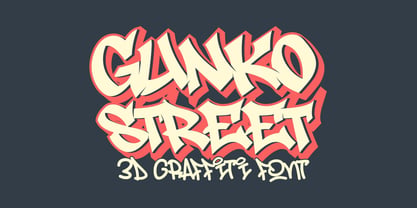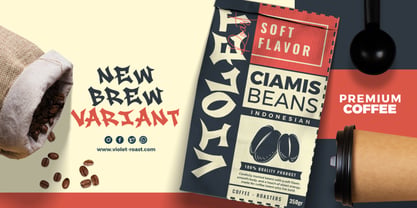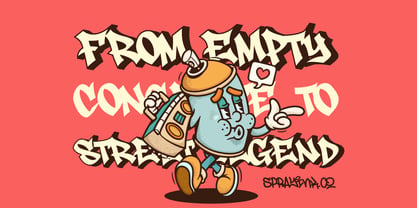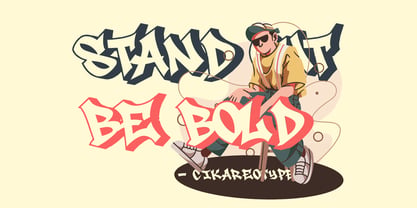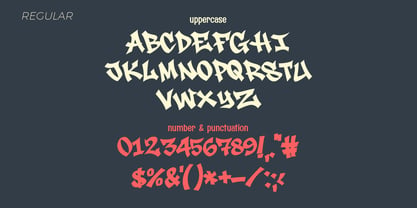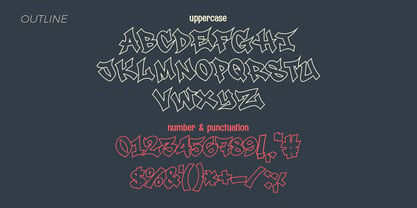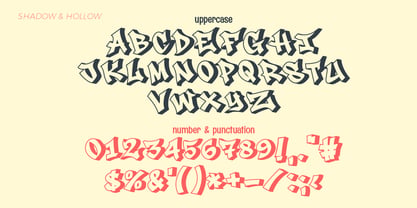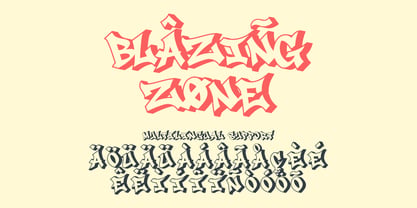
Gunko Street
Gunko Street is a bold display graffiti font that merges dynamic street lettering with a captivating 3D shadow effect. Designed to make an impact in both digital and print applications, it excels in streetwear branding, music event posters, skate culture graphics, and any endeavor aiming for a raw, urban vibe. The font's bold outlines and layered depth produce a compelling sense of motion and energy, capturing attention immediately. From striking product packaging to influential marketing campaigns, Gunko Street offers the visual intensity your projects need. This typeface is crafted for creatives eager to infuse attitude, culture, and vibrancy into their typography, making it ideal for social media graphics, promotional materials, and bold editorial designs.